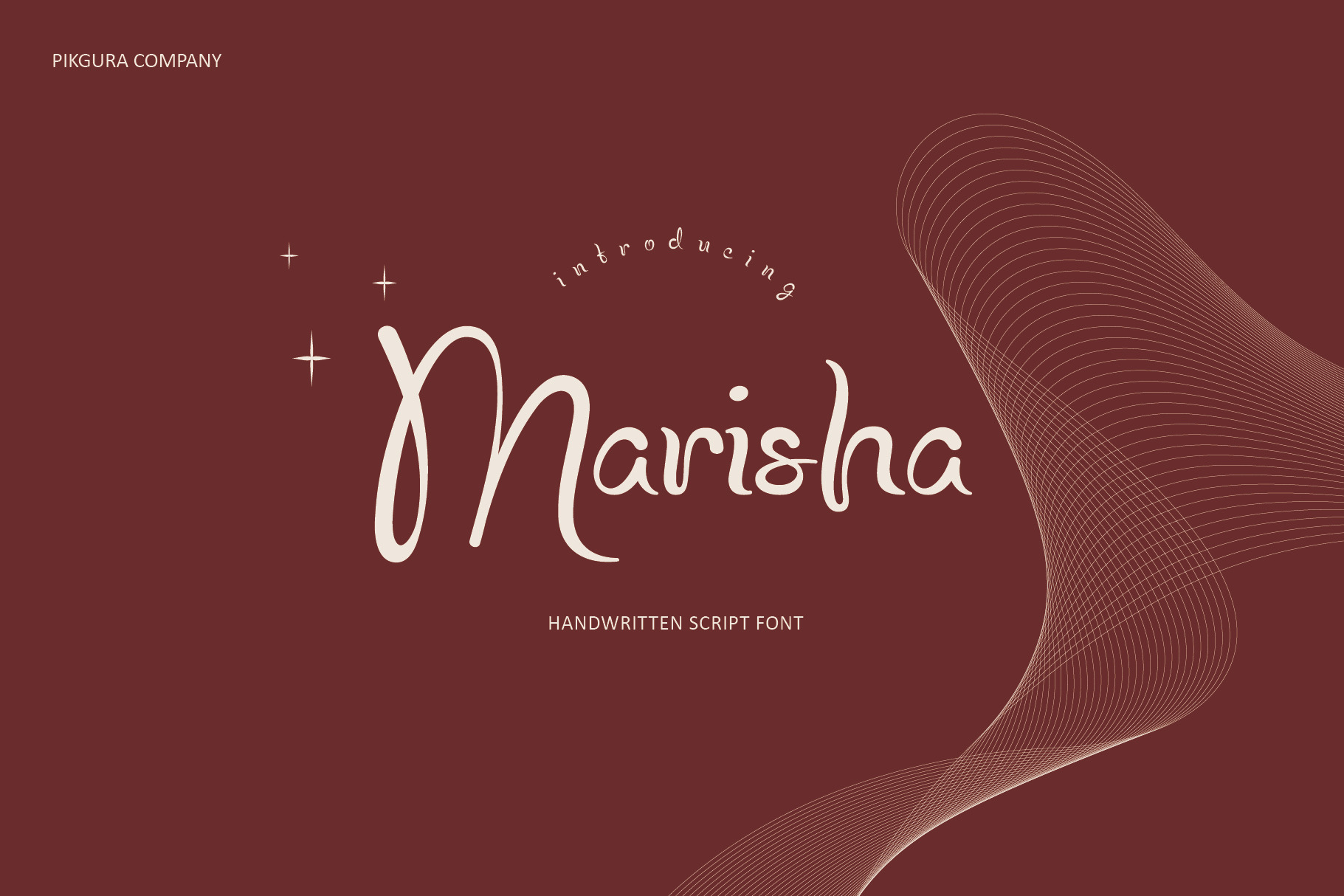
PGR Marisha - Elegant Script Font
Whether you’re creating wedding invitations, greeting cards, logos, or any other design that requires a touch of class, Marisha is the perfect choice. Its elegant lines and refined style will elevate your designs to new heights.